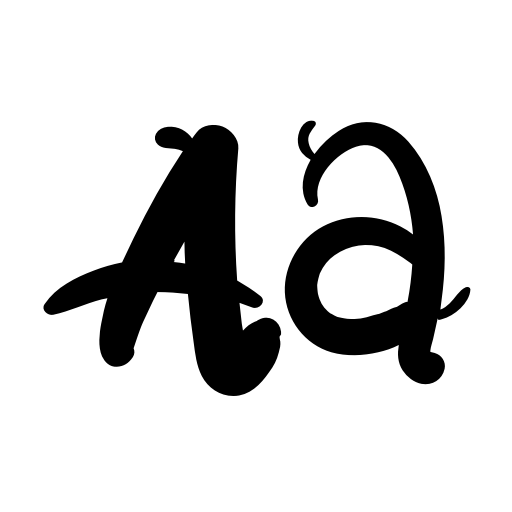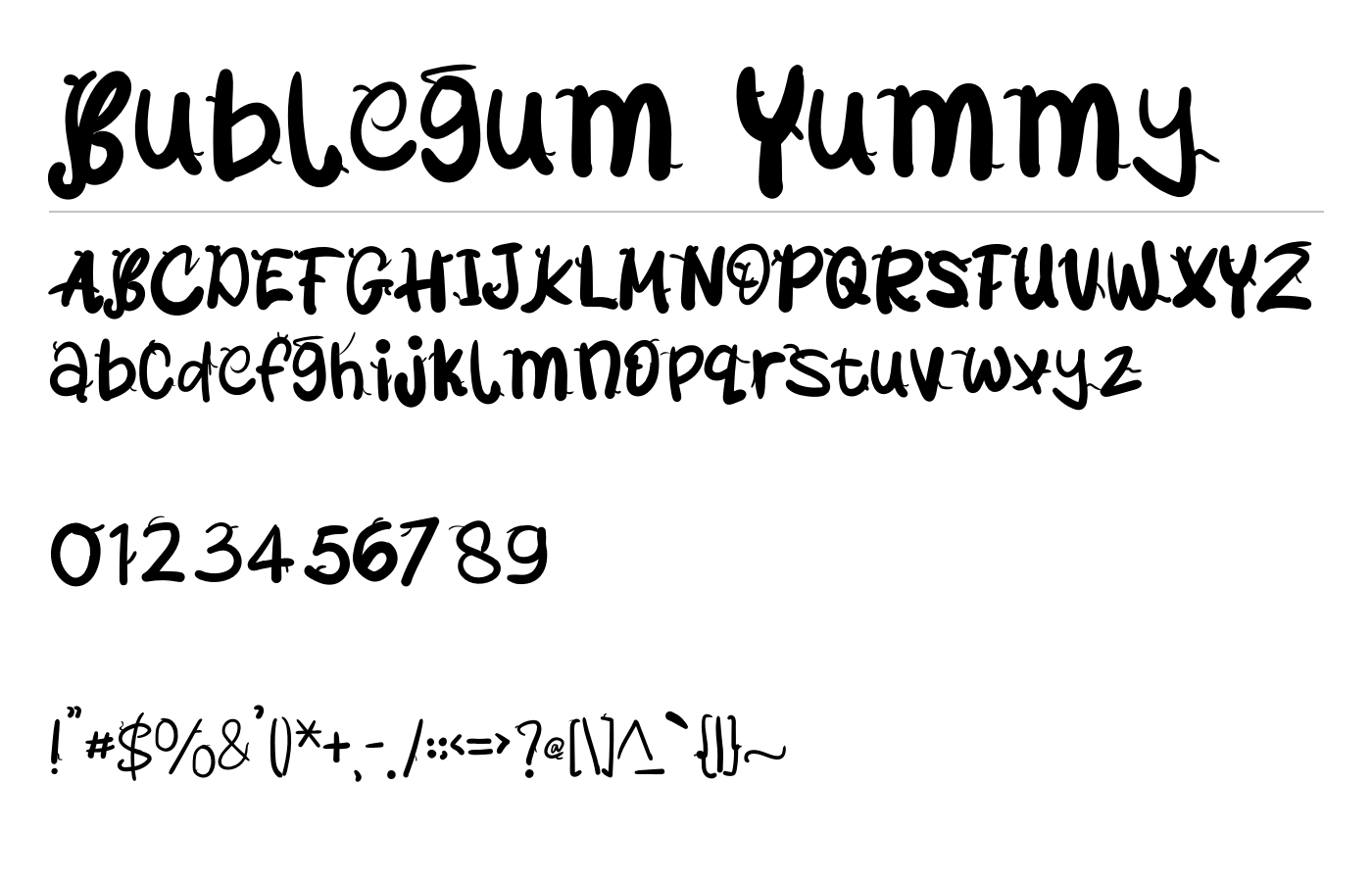
Bublegum Yummy is a playful, handwritten sans serif font with a lively and casual feel. Its rounded, irregular shapes and varying stroke thickness create a fun and friendly look, perfect for projects aiming to convey youthful energy and creativity. This font works great for branding, packaging, children’s content, and informal headlines where a cheerful, approachable style is desired.
Bublegum Yummy Font
About Bublegum Yummy Font